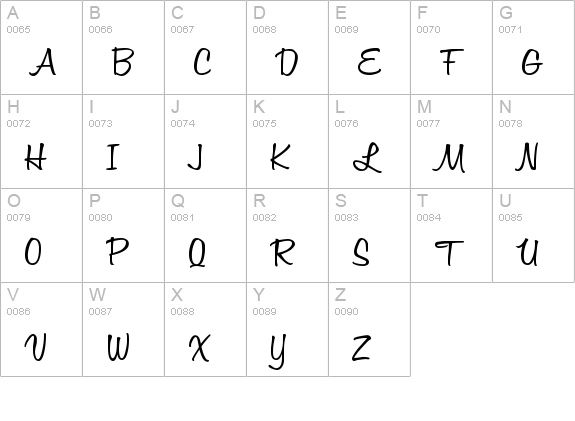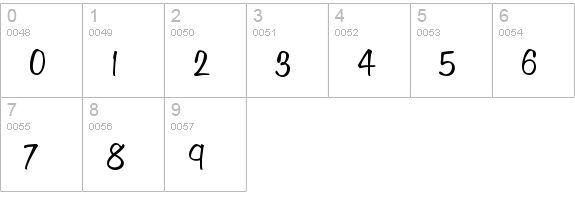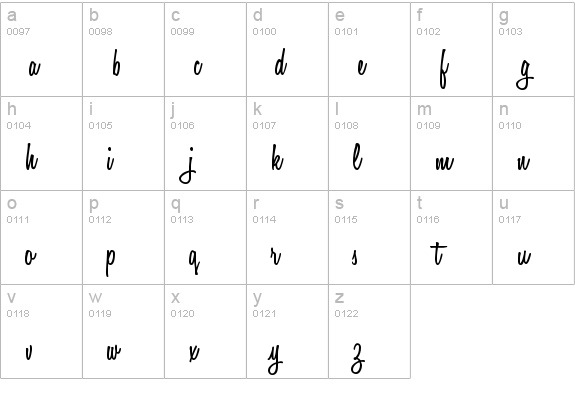
Honey Script SemiBold is a sub-bold, structured variant in the Honey typeface family \xE2\x80\x94 well suited to sub-headlines and emphasised passages.
Honey Script SemiBold is a delightful and versatile font that exudes warmth and friendliness. Its bold yet graceful strokes make it perfect for adding a touch of elegance to any design project. Whether used for headings, logos, or invitations, this font will surely make a lasting impression. The best part? Honey Script SemiBold is completely free to download at FontsMarket.com. With its charming and modern aesthetic, this font is a must-have for designers looking to elevate their creations with a touch of sophistication. Download it today and add a sweet touch to your next project!